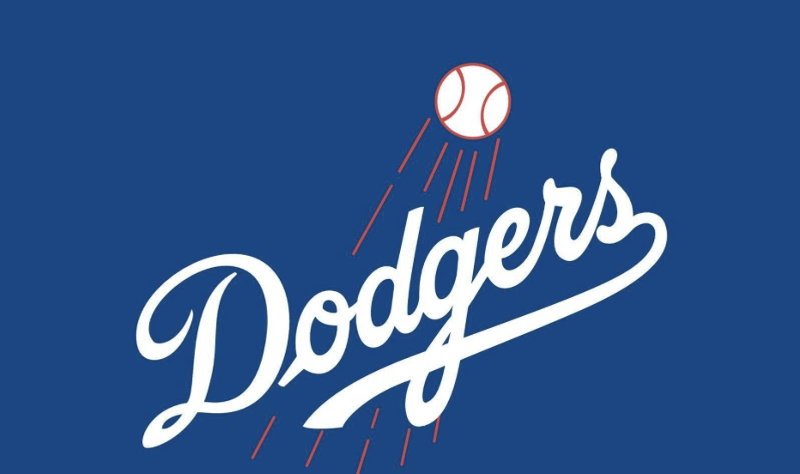
Why Fonts Matter More Than You Think and How to Choose the Right One for Any Project
When people visit a fonts website, they usually come with a simple goal. They want something that looks good. Maybe they are designing a logo, updating a website, creating social media graphics, or putting together a presentation. Fonts can feel like a small detail at first, but once you start paying attention, you realize they quietly shape everything you see. Fonts influence how a brand feels, how readable content is, and even how much people trust what they are looking at.
Fonts are not just letters. They are tone, personality, and emotion wrapped into text. Choosing the right font can make a design feel confident, playful, serious, or energetic without a single image involved. That is why browsing fonts is not just about style. It is about intention.
Fonts Set the Mood Before Words Do
Before anyone reads a headline or a paragraph, the font already sends a message. A bold heavy font feels strong and authoritative. A soft rounded font feels friendly and approachable. A clean modern font feels professional and current. This happens instantly, often without the viewer realizing it.
Think about sports branding for a moment. Sports photography often captures intensity, motion, and emotion. When those images are paired with the right font, the impact doubles. A sharp condensed font can amplify speed and power. A wide bold font can make a moment feel larger than life. The wrong font, even with an incredible photo, can flatten the entire experience.
This is why fonts are such an important tool for designers, photographers, marketers, and business owners alike. They do not just support visuals. They shape how visuals are perceived.
Readability Is the Foundation of Good Design
No matter how stylish a font looks, it has to be readable. This is especially true for websites, blogs, and long form content. If visitors have to work to read your text, they will leave. It really is that simple.
For body text, clean and balanced fonts usually perform best. Letters should be easy to distinguish from one another, spacing should feel natural, and line height should give the eyes room to breathe. Display fonts are great for headlines, logos, and short phrases, but they can become exhausting when used for paragraphs.
A good fonts website helps users preview text at different sizes and weights. This makes it easier to see how a font behaves in real world situations. Always test fonts with actual content, not just sample words. Try headlines, captions, buttons, and longer paragraphs before committing.
Fonts Help Build Brand Recognition
Consistency is one of the most important elements of branding. Fonts play a huge role in that consistency. When people see the same font used across a website, social posts, ads, and packaging, it starts to feel familiar. Over time, that familiarity builds trust.
Think about how recognizable certain brands are even without their logos. Often, it is the typography doing the heavy lifting. A well chosen font becomes part of the brand’s voice. It tells people what to expect.
For creative brands like photography studios, media outlets, or sports content platforms, typography helps bridge visuals and messaging. A site showcasing sports photography might use a strong modern font for headlines to reflect energy and action, while keeping body text clean and neutral for easy reading. This balance allows images to shine while still delivering information clearly.
Pairing Fonts Without Overthinking It
One of the most common struggles people face is font pairing. They worry about getting it perfect, but it does not have to be complicated. A simple approach works best for most projects.
Start with one primary font that fits your brand or purpose. This might be a bold font for headlines or a clean font for body text. Then choose a secondary font that contrasts without clashing. Contrast can come from weight, width, or style. For example, a bold headline font paired with a simple readable body font usually works well.
Avoid using too many fonts at once. Two fonts is often enough. Three can work in some cases, but more than that usually creates visual noise. Fonts should support your content, not compete with it.
Fonts and Emotion Go Hand in Hand
Typography has a strong emotional component. Rounded shapes feel softer and more friendly. Sharp edges feel more aggressive or serious. Thin fonts can feel elegant or delicate, while thick fonts feel confident and bold.
This emotional impact matters across industries. In sports related content, emotion is everything. Sports photography captures moments of victory, tension, celebration, and defeat. The fonts used alongside those images should echo that emotion. A dramatic moment paired with a timid font feels disconnected. A powerful font reinforces the story the image is telling.
The best fonts do not distract. They enhance. They guide the reader, support visuals, and reinforce tone. When chosen thoughtfully, fonts make content feel intentional and polished.
As you browse fonts, trust both your eyes and your instincts. Test how fonts feel with your content. Pay attention to readability, emotion, and consistency. Fonts might seem like a small detail, but once you find the right one, everything else starts to fall into place.
In the end, a great font does not just look good. It feels right.